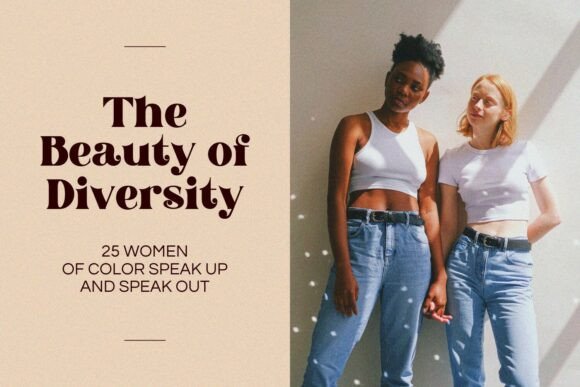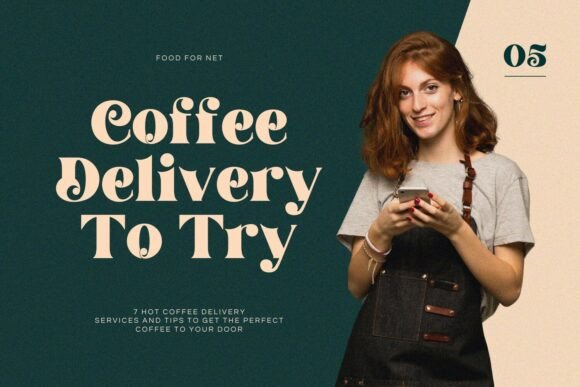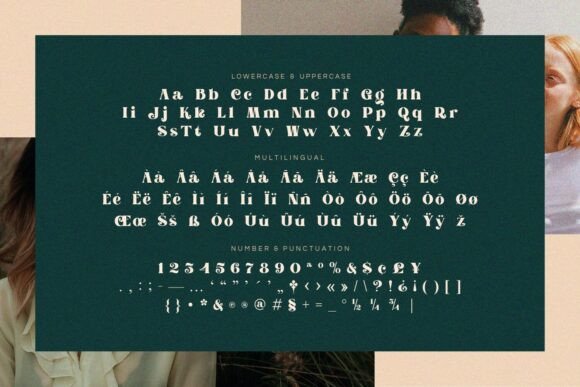
The Elegant Charm of Griskay Font: A Designer’s Delight
I’ll never forget the time I was working on a luxury branding project for a high-end fashion client. I had spent hours pouring over design concepts, but something was missing – the perfect font. That’s when I stumbled upon Griskay Font, a stunningly elegant and stylish serif font that instantly elevated my design game. In this article, I’ll share my experience with Griskay, its features, and how to make the most of this beautiful font in your designs.
Unpacking the Elegance of Griskay Font
Griskay typeface is a masterful blend of timeless sophistication and playful charm. Its dramatic contrast between thick and thin strokes, beautifully crafted curves, unique ligatures, and enchanting swashes add a romantic and expressive rhythm to any design. This font is reminiscent of classic European cinema and high fashion editorials, making it perfect for projects that require a refined and memorable touch.
The Good: ✨
- ✅ Elegant and sophisticated design
- ✅ Unique ligatures and swashes for added creativity
- ✅ Highly versatile for various design projects
- ✅ Perfect for luxury branding, logos, headlines, and more
The Not-So-Good: 🤔
- ⚠️ May not be suitable for body text due to its ornate nature
- ⚠️ Some swashes and ligatures may require manual adjustment
The Story Behind Griskay Font
Griskay Font was inspired by the golden age of European cinema and the world of high fashion. Its creator aimed to craft a font that would evoke the same sense of luxury and sophistication found in classic films and fashion editorials. The result is a font that exudes elegance and refinement, perfect for designers seeking to add a touch of glamour to their projects.
Q: What type of projects is Griskay Font best suited for?
A: Griskay Font is perfect for luxury branding, logo design, captivating headlines, wedding invitations, magazine layouts, and standout social media graphics.
Q: Can I use Griskay Font for body text?
A: While Griskay is a beautiful font, its ornate nature makes it better suited for headlines and titles. For body text, consider a more legible font.
Q: Does Griskay Font come with OpenType features?
A: Yes, Griskay Font features a range of OpenType features, including swashes, ligatures, and stylistic alternates.